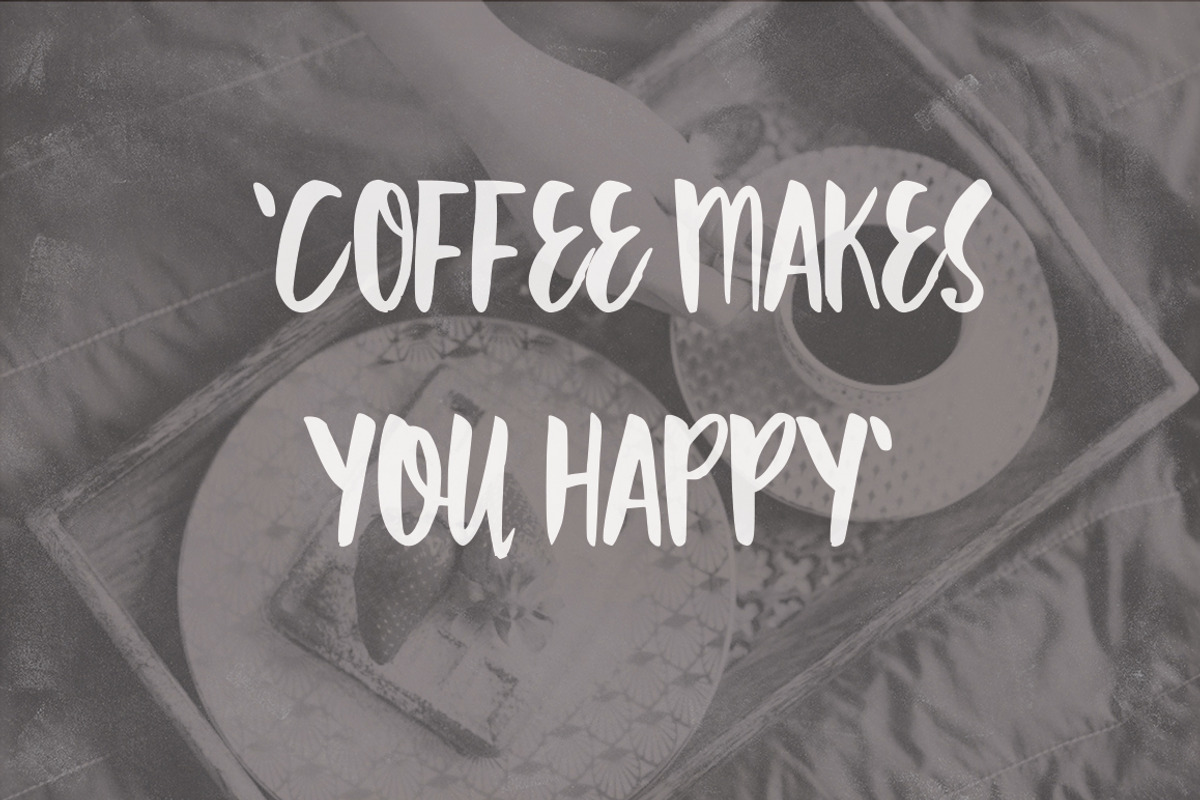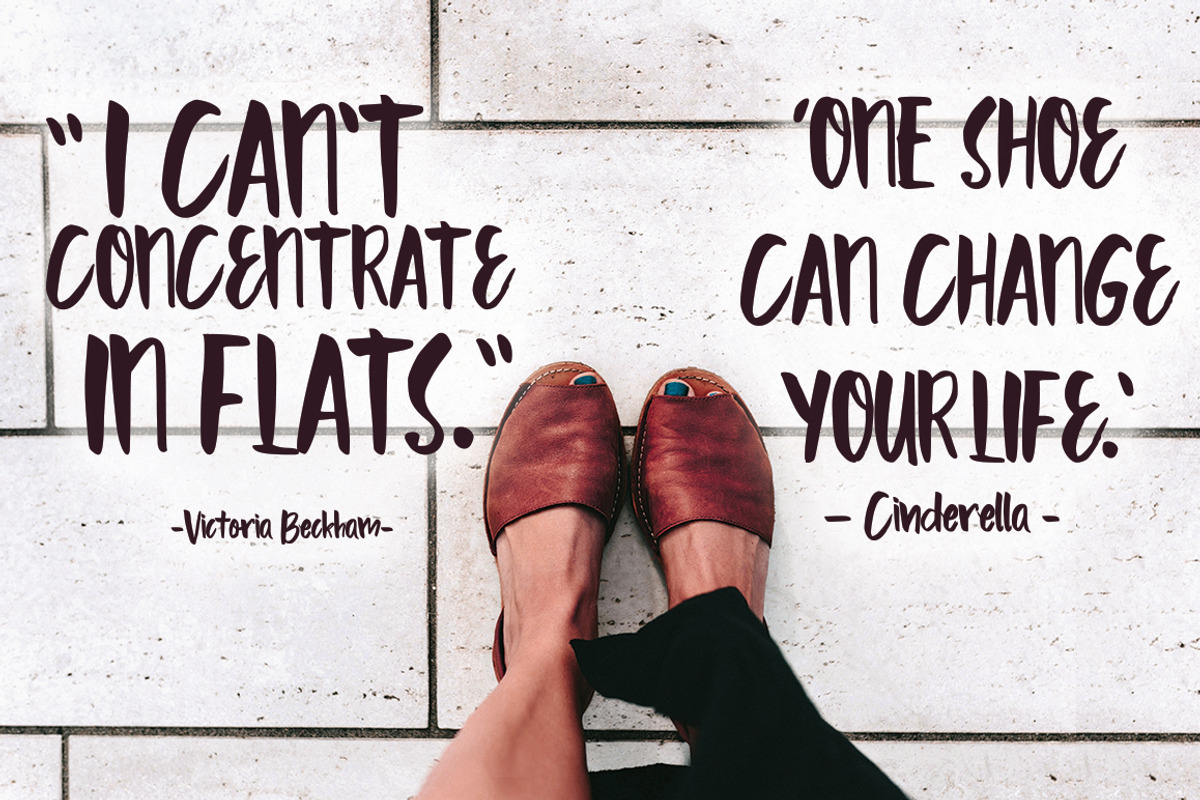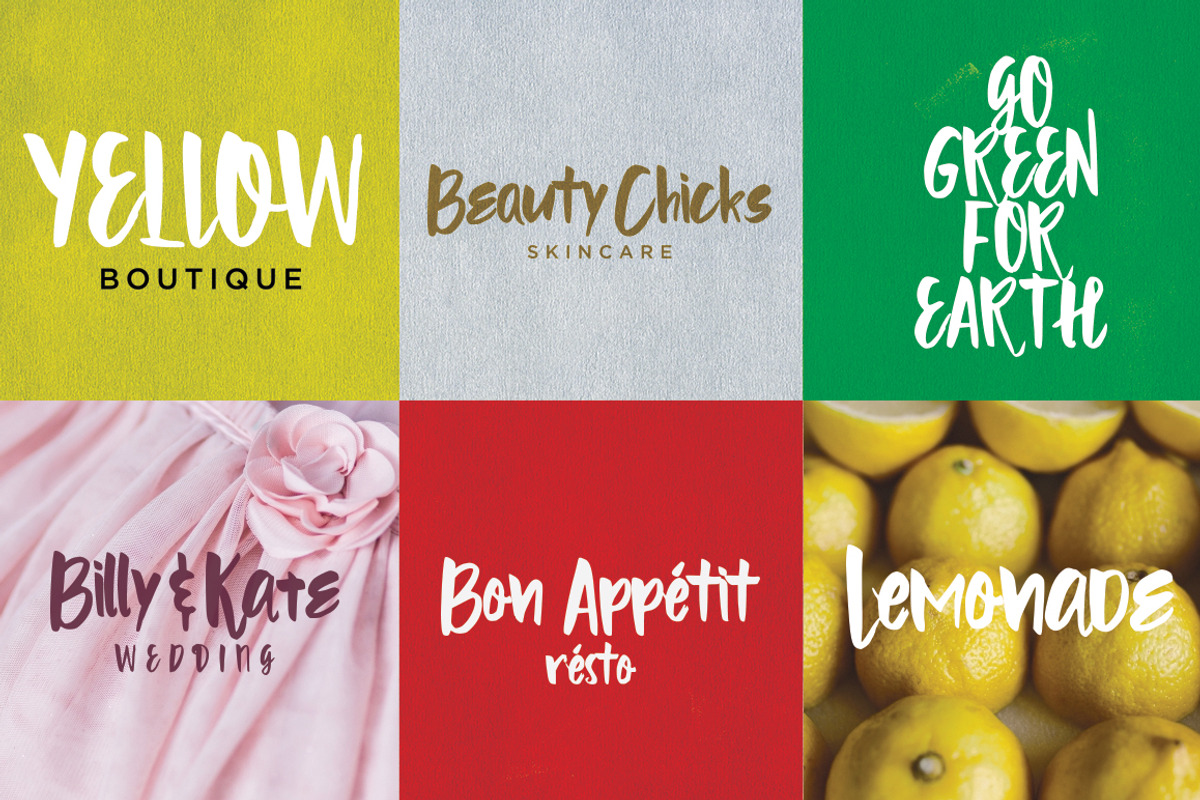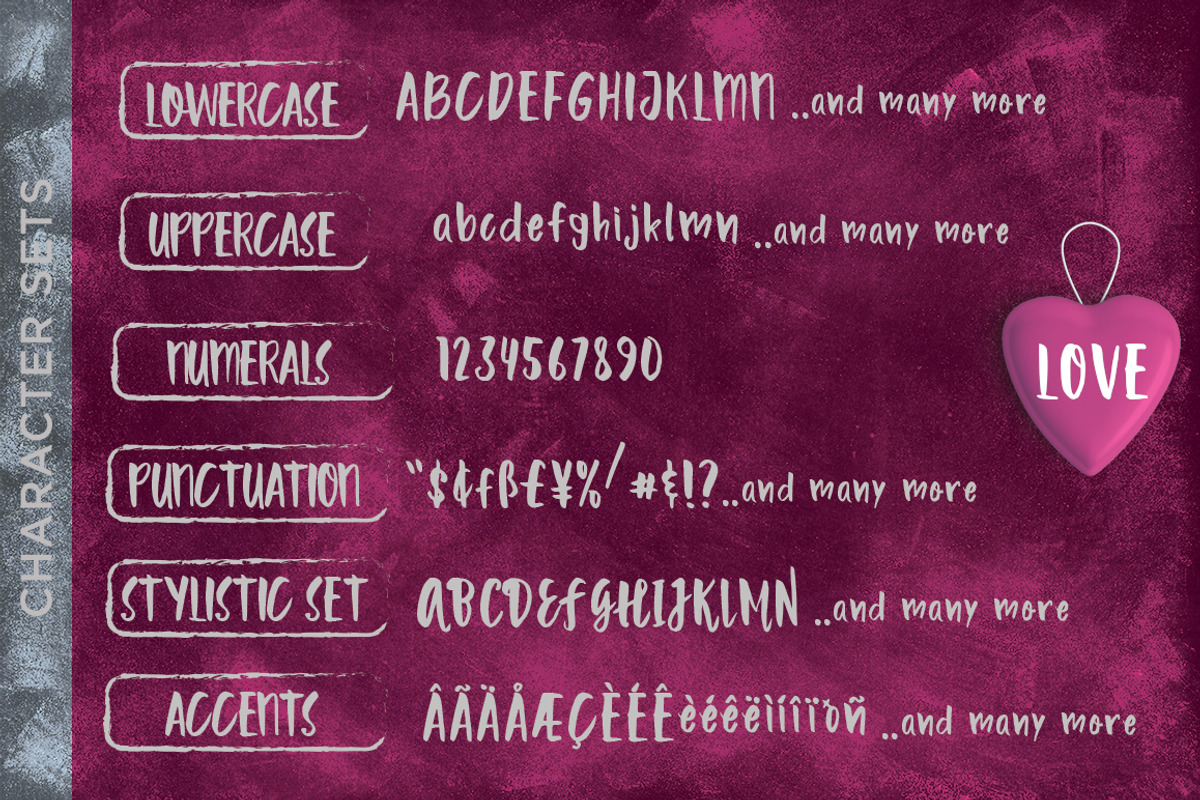
Sale ! 50% off Bowpail Font by fopifopi is a font selected for branding, posters, packaging, typography.
- Punctuations (OpenType Standard)
- Some stylistic set
Sale ! 50% off Bowpail Font by fopifopi fits naturally into Branding, posters, packaging, typography.